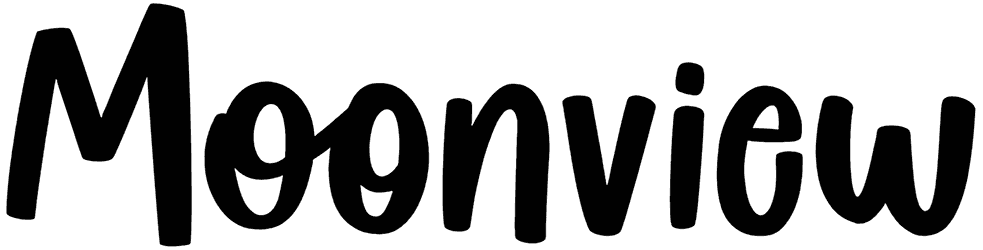
Moonview Font
Like the heroes of the comic world, Moonview font can inject excitement into your writing and transport readers to a beautiful world full of action and adventure. This fancy font appears everywhere, from advertising campaigns to movie posters, and gives a sense of play.
Also, this comic font can add a lot of personality to your next project and keep the audience busy for a while with some entertainment. So embrace being quirky and let this comic font work its magic.